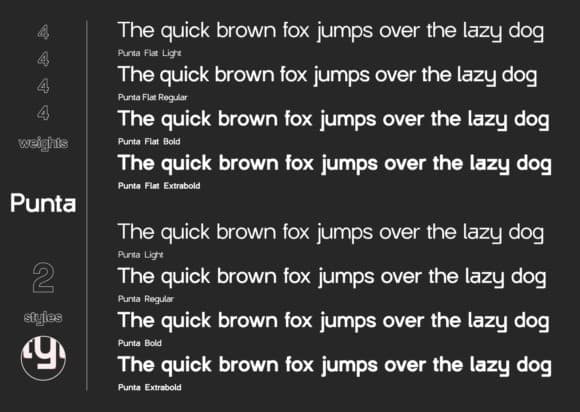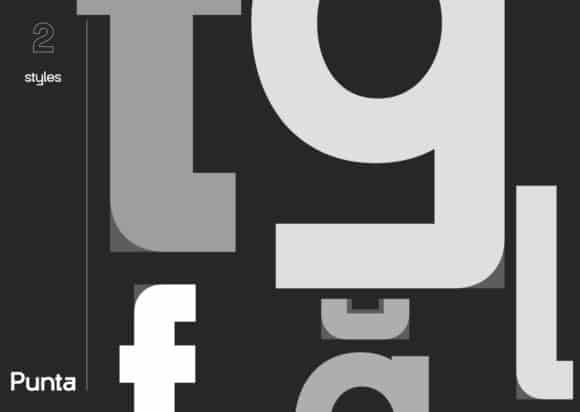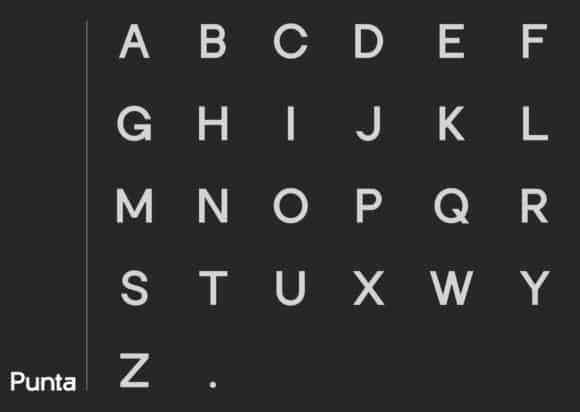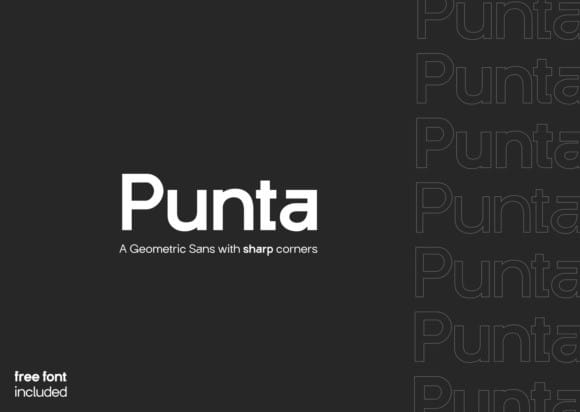
Punta Sans Serif Font
Punta Sans Serif Font is a very cool typeface for a design with modern display headline: magazine, poster, branding, labels, music, and minimalism styles. With a strong display and clean nodes make a text in a design become more character and great. And It’s is a minimal, yet elegant sans serif font. Suitable to a wide variety of designs due to its neat and simple style, Punta has the potential to become your favorite go-to typeface, no matter the occasion!